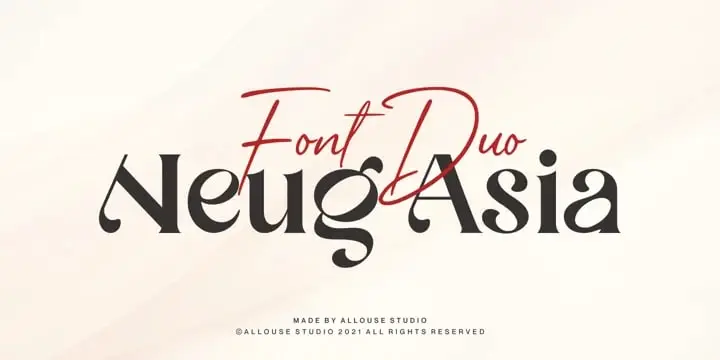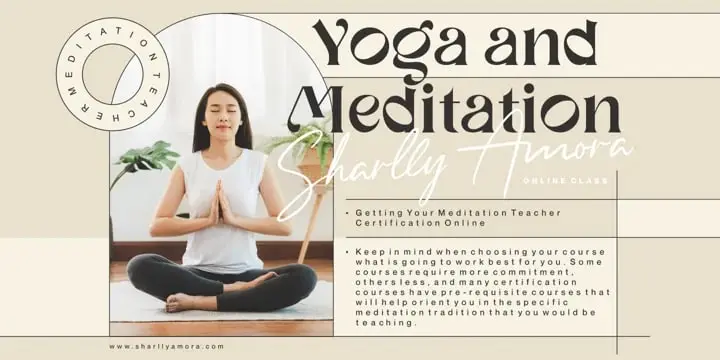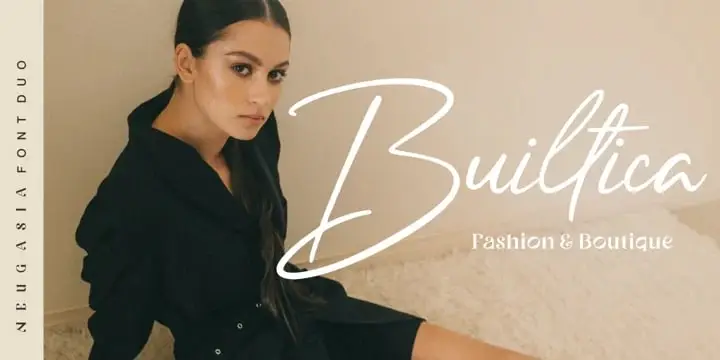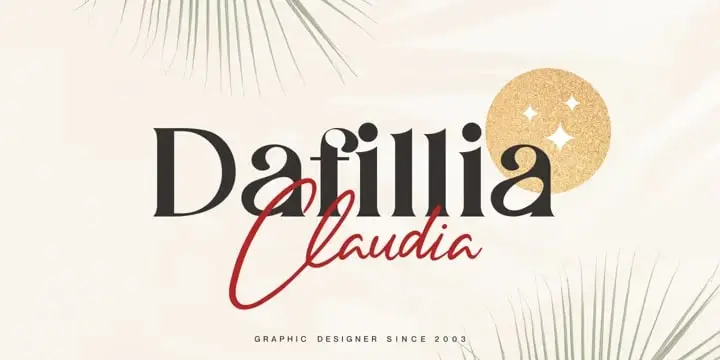
The Allouse Studio-Neug Asia Font Family offers a unique blend of modern and traditional design elements, making it a versatile choice for various projects. This font family includes multiple styles and weights, allowing for a wide range of creative applications.
- Regular, Bold, and Italic styles
- Elegant letterforms with a contemporary touch
- Support for multilingual characters
Ideal for branding, logos, web design, and print materials, the Allouse Studio-Neug Asia Font Family can elevate your projects with its distinctive style.